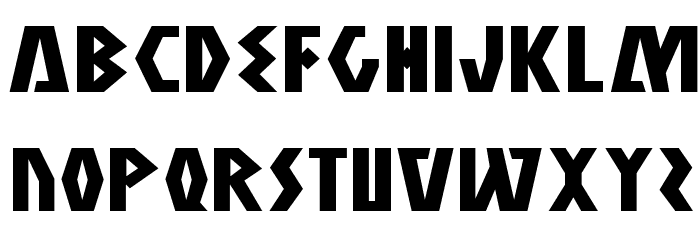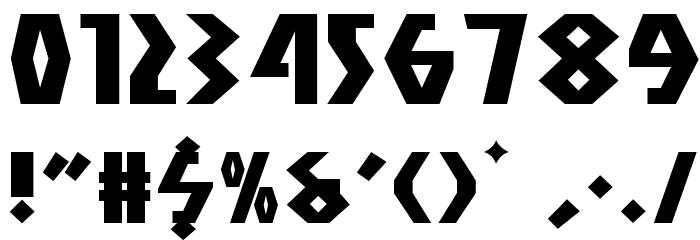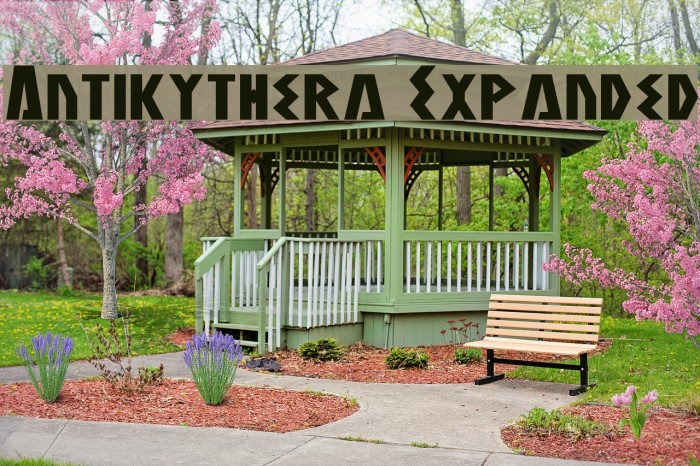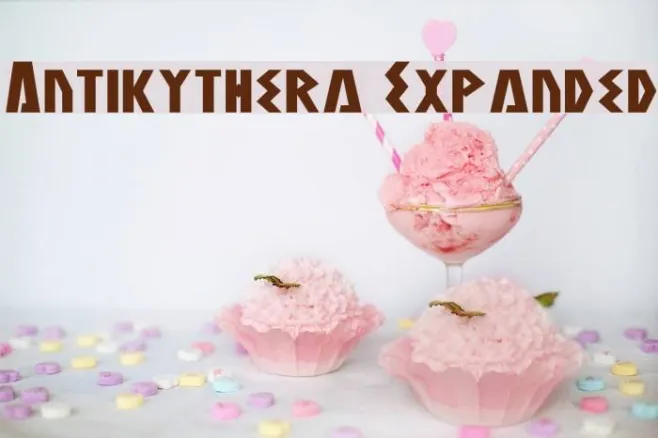
Antikythera Expanded Font
This font features a bold and geometric design with sharp angles and a futuristic aesthetic. The characters are constructed with a consistent thickness, creating a strong visual impact. The uppercase letters are particularly striking, with unique cuts and angles that give them a dynamic and edgy appearance. The lowercase letters maintain the same boldness, ensuring readability while retaining the font's distinctive style. Numbers and special characters are equally bold, complementing the overall design. This font's expanded width and tight character spacing contribute to its commanding presence, making it ideal for attention-grabbing headlines and designs.
- Proposed Projects: Ideal for sci-fi themed projects, posters, video game graphics, and branding that requires a modern and bold statement.
- Character Spacing: Tight
- Overall Style: Futuristic, Edgy